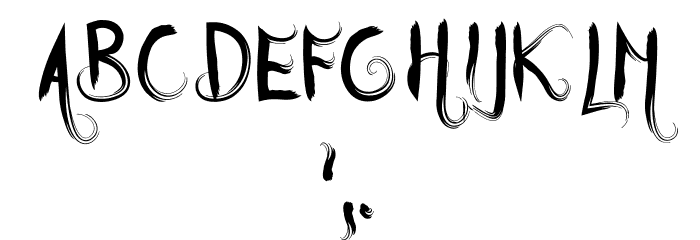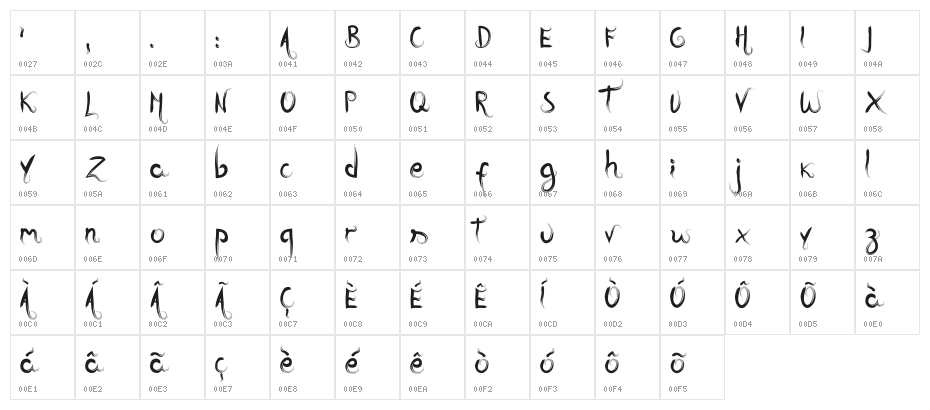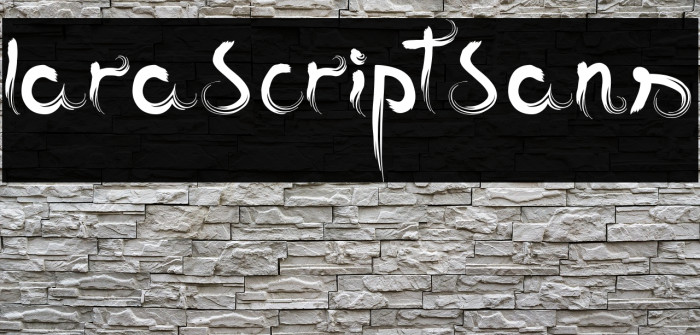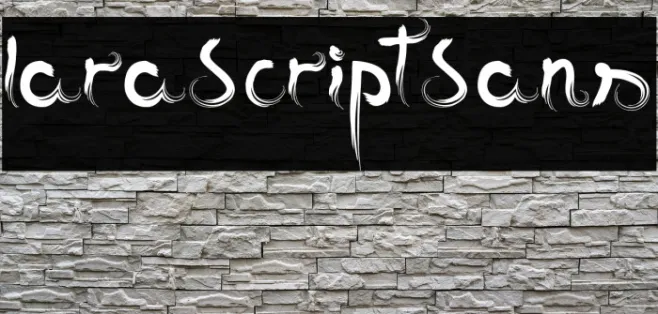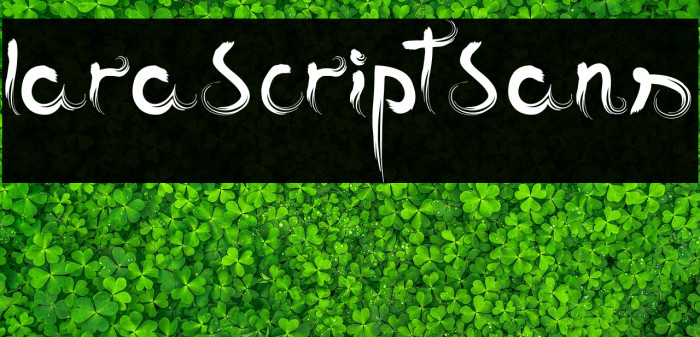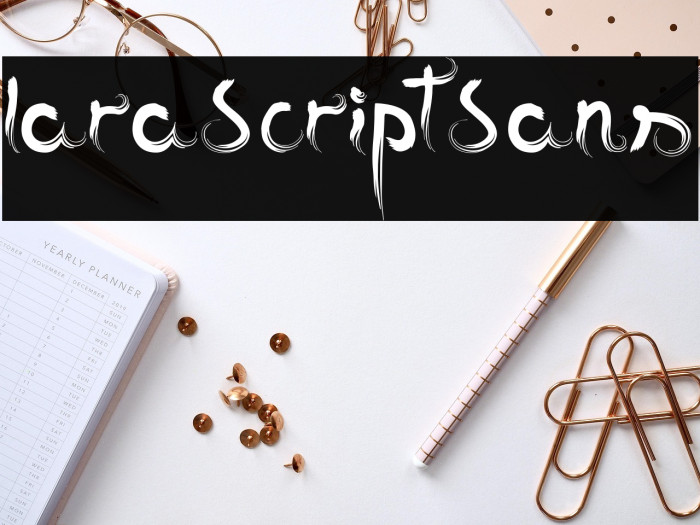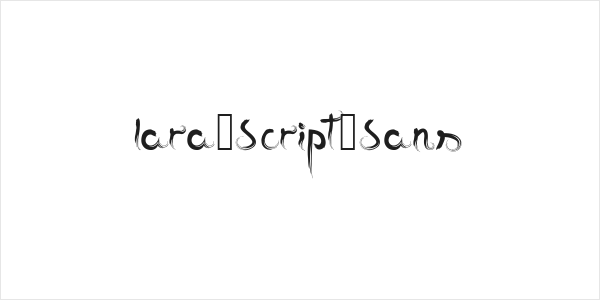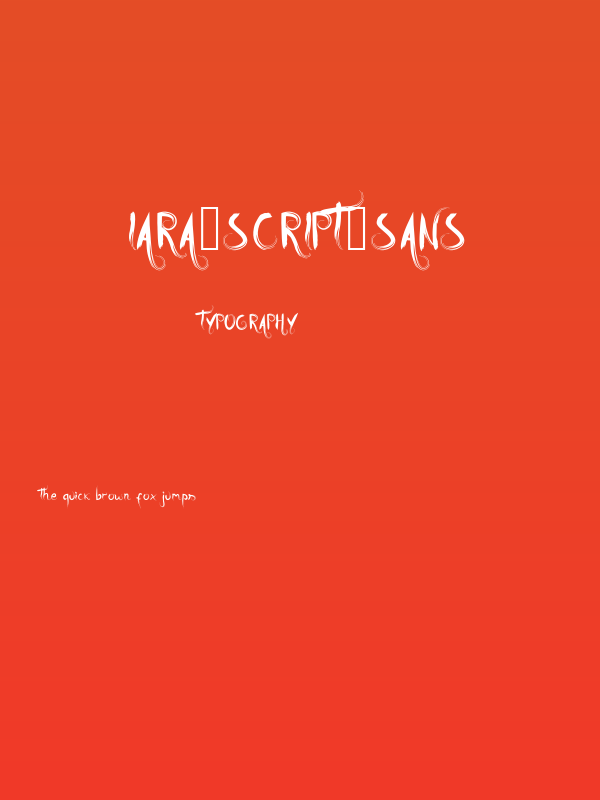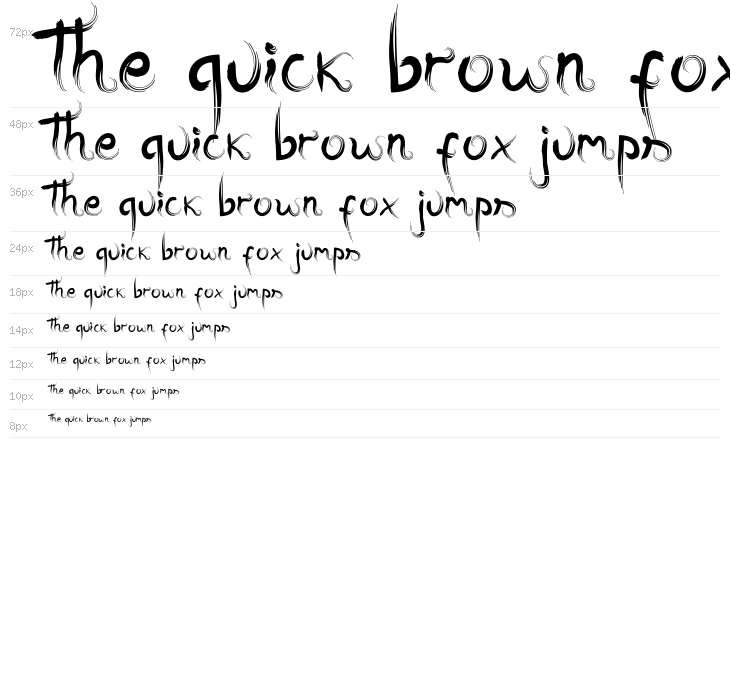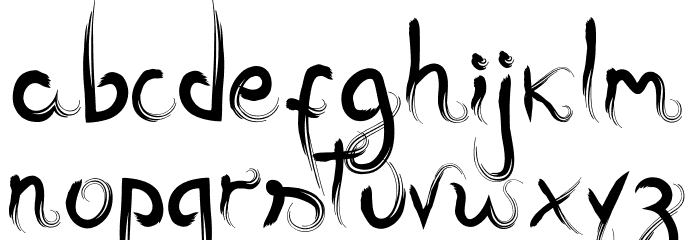
Iara-Script-Sans Font
Iara-Script-Sans Description
This font features a unique blend of script and sans-serif styles, characterized by its flowing, brush-like strokes and elegant curves. The uppercase letters exhibit a dynamic and artistic flair, with swirls and loops that add a sense of movement and creativity. The lowercase letters maintain a consistent style, with some characters extending below the baseline, enhancing the font's fluidity. The numerals and special characters are crafted with the same attention to detail, ensuring a cohesive look across all elements. This font is ideal for projects that require a touch of sophistication and artistic expression.